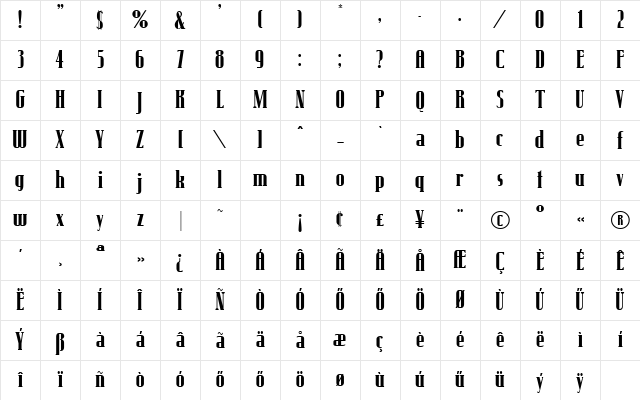
Hu_RiskyToo Regular
Design Context for Hu_RiskyToo
Hu_RiskyToo is a composed and adaptable typeface that performs quietly and consistently across a wide range of design contexts.
Pro Tip: Use Hu_RiskyToo in both headline and body roles to test its range before committing to a single application.